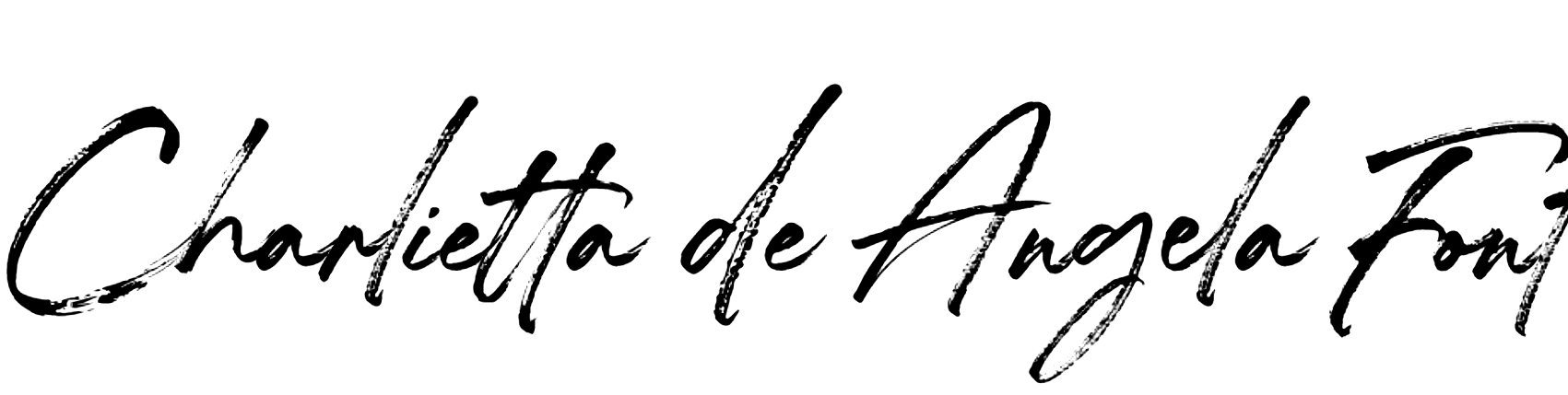
Charlietta de Angela
Charlietta de Angela is a script font created by Almarkhatype Studio – Abdul Malik – Andrie. It has that hand-lettered, flowing feel people look for when regular type seems too stiff. It's a free download, and you can try it with your own text in the preview above first.
What You Can Type With Charlietta de Angela
You get every letter from A to Z in both cases and all the numbers from 0 to 9, which means Charlietta de Angela can handle full sentences, dates and prices. Everyday marks like &, !, ? and @ are there too. Thanks to its accented letters, it also works for Spanish, French, German, Portuguese and Italian, not just English.
Ligatures and Smart Letters in Charlietta de Angela
Where Charlietta de Angela Works Best
Charlietta de Angela is a natural fit for wedding invitations, logos and signature-style headings. Its lowercase letters are small compared to the capitals, so set it a size or two bigger than usual. Script fonts read best in short bursts, so keep it to names, titles and one-line quotes. Skip all caps: script capitals are drawn to start a word, not to fill one.
Does Charlietta de Angela have ligatures?
Yes. Charlietta de Angela has ligatures that turn on by themselves in most design apps and browsers, so you don't need to do anything special.
Does Charlietta de Angela support accented letters?
Yes. Charlietta de Angela includes the accented letters needed for Spanish, French, German, Portuguese and Italian, so it works for more than just English.